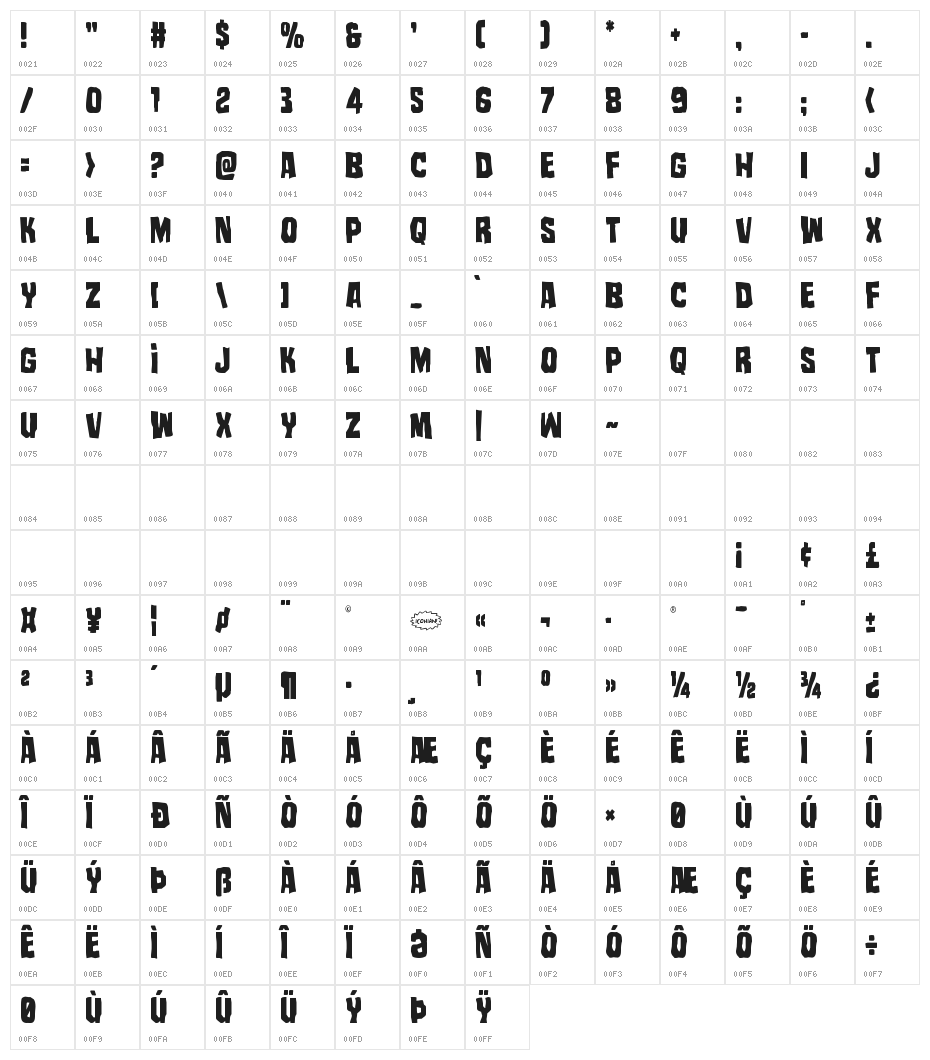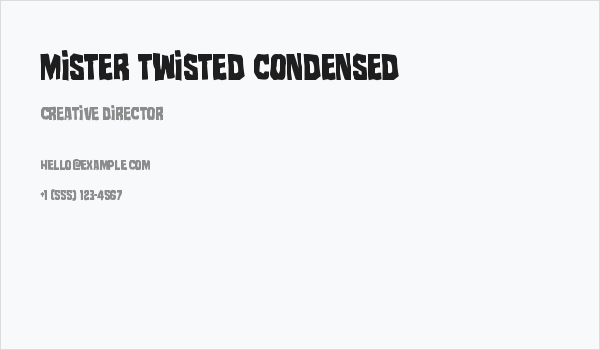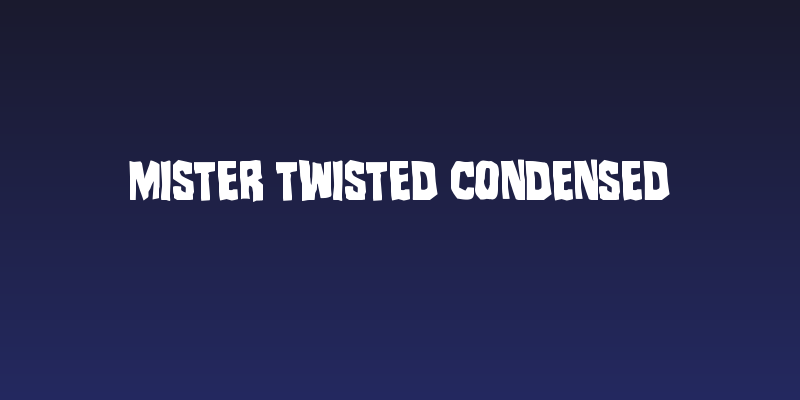
Mister Twisted Condensed Font
Mister Twisted Condensed Description
This font features a bold and playful design with a condensed structure, giving it a unique and twisted appearance. The characters are irregularly shaped, with varying angles and thicknesses that create a dynamic and energetic feel. The uppercase and lowercase letters maintain a consistent style, while the numbers and special characters complement the overall aesthetic. This font's quirky and bold nature makes it stand out, perfect for projects that require a touch of creativity and fun.
| Overall Style | Playful, Quirky, Dynamic |
| Proposed Projects | Ideal for posters, comic books, children's books, and creative branding projects. |